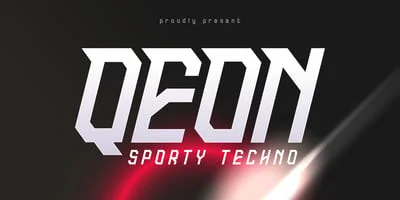
Qeon Font
This sleek and futuristic typeface is perfect for tech startups, gaming brands, sci-fi projects, digital interfaces, and innovative marketing materials. It combines sharp angles with smooth curves, creating a dynamic and modern appearance.
What makes Qeon Font so exciting is its bold geometric shapes fused with clean lines, offering a high-tech yet approachable vibe. The font is designed to capture attention while maintaining excellent readability across various platforms.
The Qeon Font family includes multiple weights such as Light, Regular, Bold, and Italic, supporting uppercase, lowercase, numerals, punctuation, and multilingual characters. This versatility allows it to adapt to a wide range of creative needs.
For designers looking to add a cutting-edge and futuristic feel to their projects, Qeon Font provides a great opportunity to test this modern typeface before purchasing the commercial license. It’s a font that pushes boundaries while staying sleek and professional.